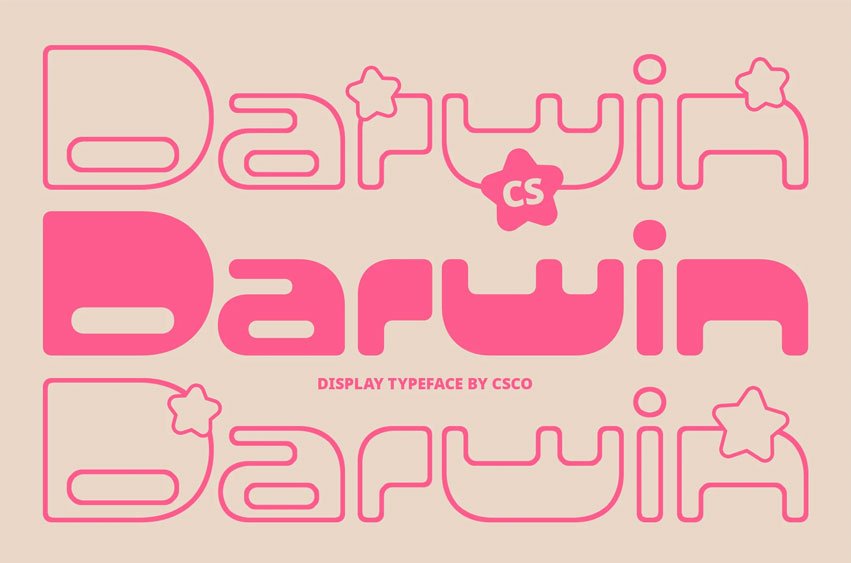
CS Darwin Font is a Stylish Fusion of 2000s Nostalgia and Futuristic Flair. CS Darwin is a Y2K-inspired display font that brings the early 2000s digital aesthetic into the modern era. With its clean yet bold design, it combines glossy curves, smooth contours, and sleek futuristic forms that echo the tech-obsessed, style-heavy visuals of the millennium era.
Sleek, Glossy, and Funky by Nature. The letterforms of CS Darwin are infused with fluid curves and a polished, almost digital shine, mimicking the techno-futuristic vibes once seen in early websites, pop graphics, and tech advertisements of the 2000s. There’s a funky and playful twist in its structure—making the font expressive, youthful, and full of personality.
Perfect for Y2K Revival and Digital Pop Culture. Whether you’re designing music event posters, edgy fashion branding, experimental album covers, or nostalgic digital artwork, CS Darwin delivers a retro-futuristic voice with confidence. Its stylized, bold personality fits right into today’s resurgence of Y2K trends in design, fashion, and entertainment.
A Go-To Font for Trendsetters and Creative Rebels CS Darwin isn’t just about nostalgia—it’s about reinterpreting the past with a modern twist. It’s the ideal choice for creatives who want their visuals to stand out with a sense of style, tech influence, and cultural flair. Add it to your type arsenal to infuse your project with energy, attitude, and Y2K-inspired cool.